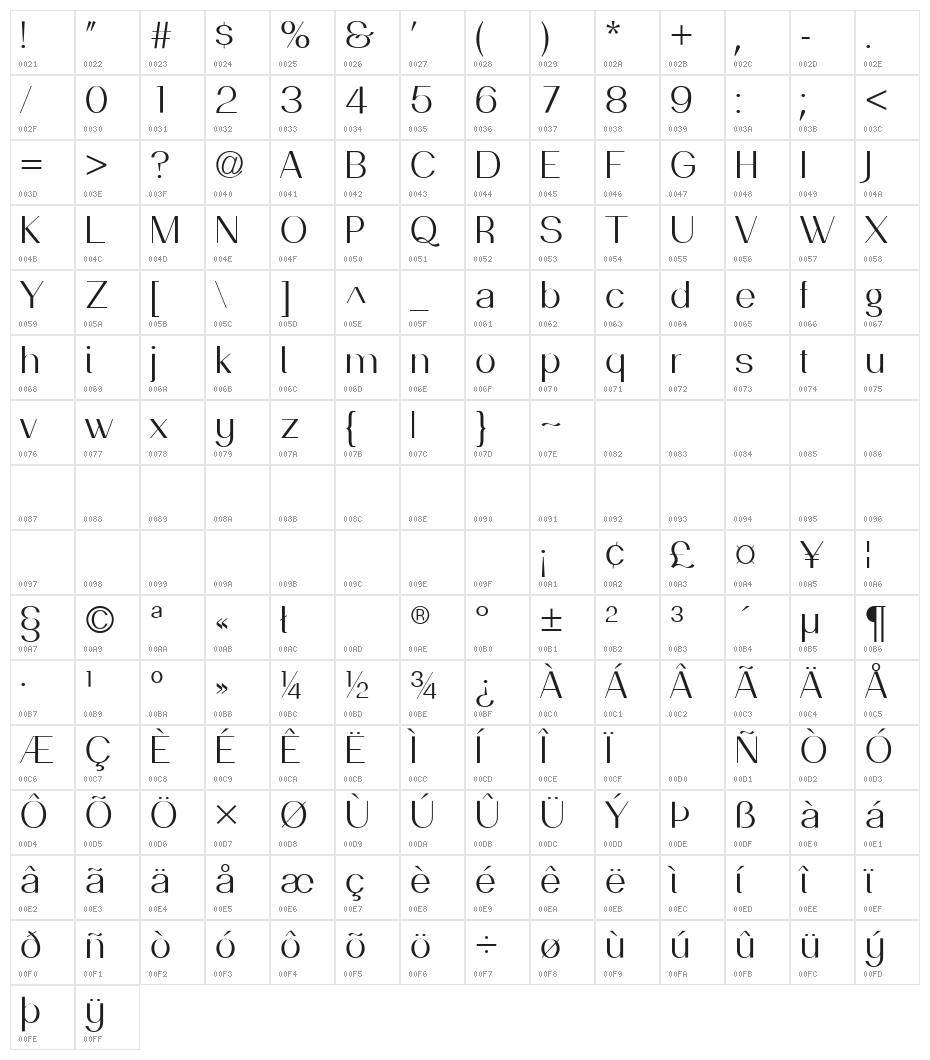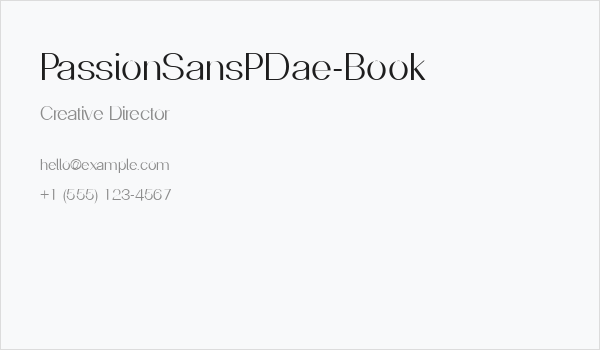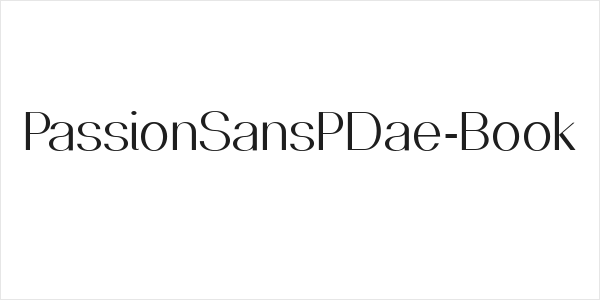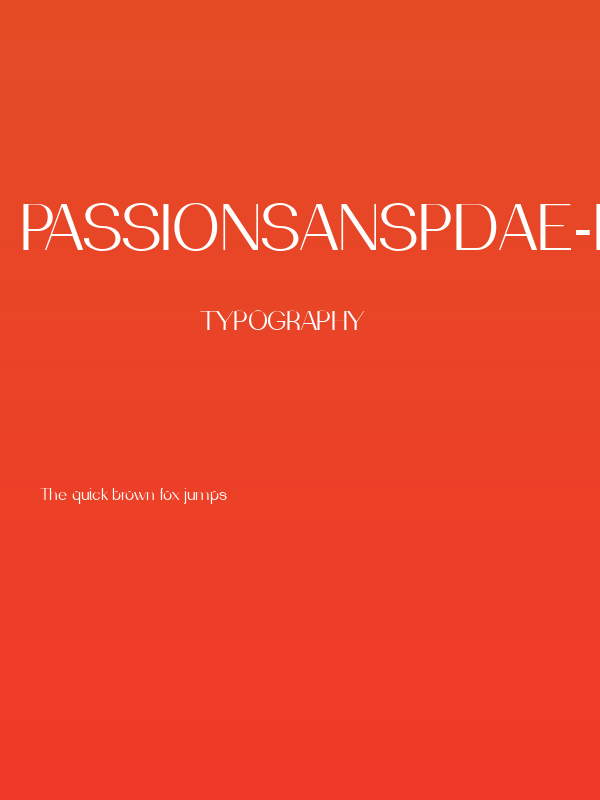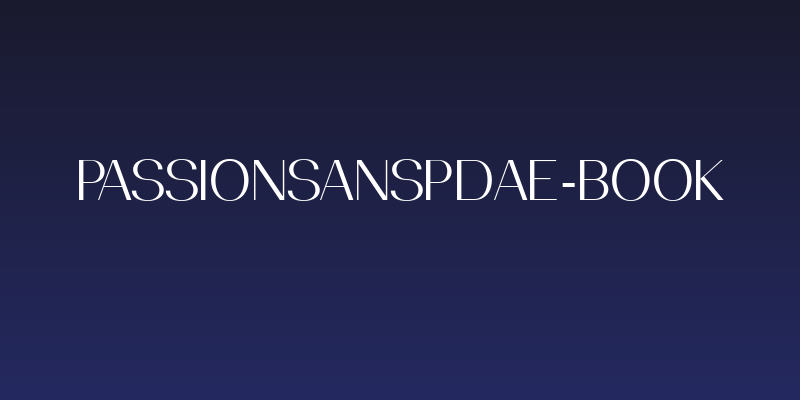
PassionSansPDae-Book Font
PassionSansPDae-Book Description
This font features a clean and modern sans-serif design, characterized by its sleek and minimalist appearance. The uppercase letters are tall and elegant, with a uniform stroke width that gives a sense of balance and stability. The lowercase letters maintain a similar aesthetic, with rounded edges that add a touch of softness to the overall look. The numerals are clear and legible, making them suitable for various applications. Special characters are well-defined, ensuring versatility in usage. The font's overall style is contemporary, making it ideal for projects that require a modern and professional touch.
| Use Case | Headlines, Body text, Logos |
| Proposed Projects | Ideal for branding, digital media, advertising, and editorial design. |